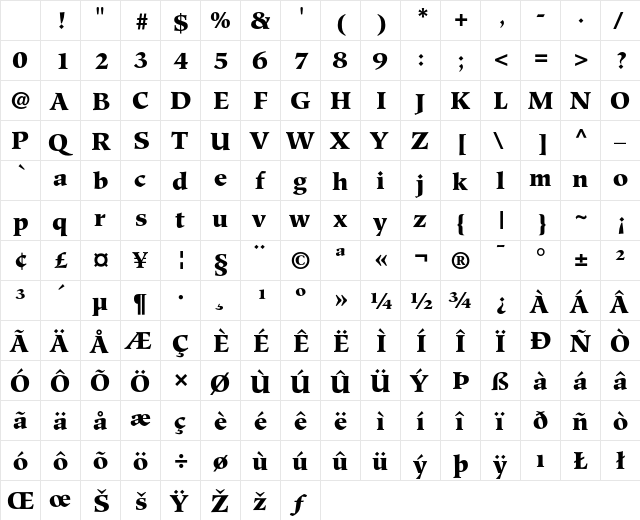
Complete Hiroshige Black glyph index. Displaying only characters natively supported by Hiroshige Black font.
Hiroshige is a composed and adaptable typeface that performs quietly and consistently across a wide range of design contexts.